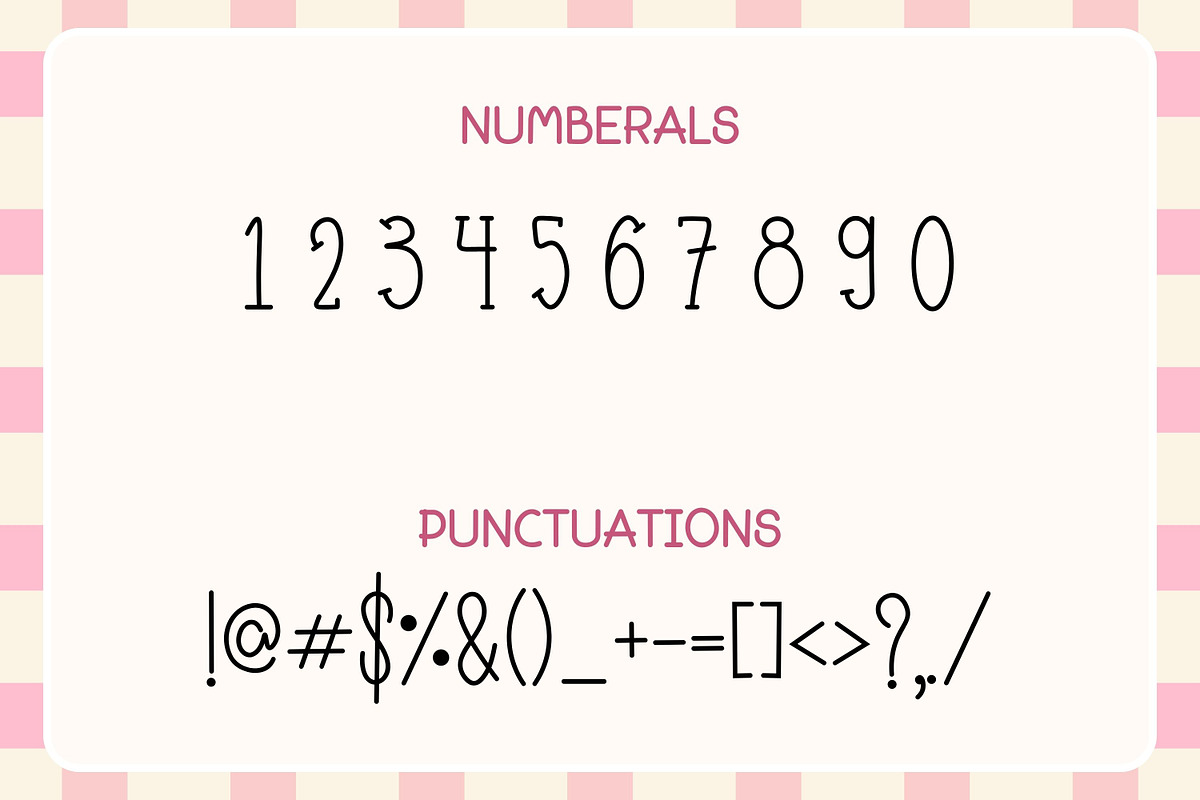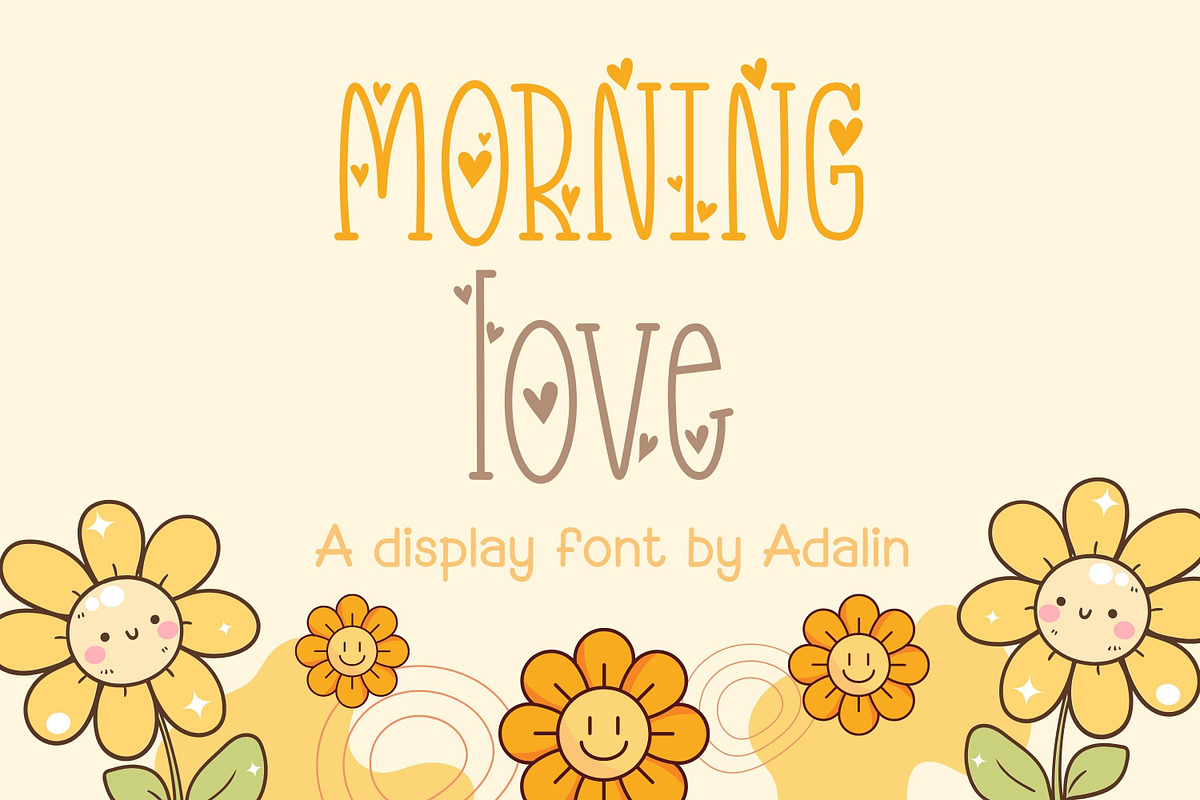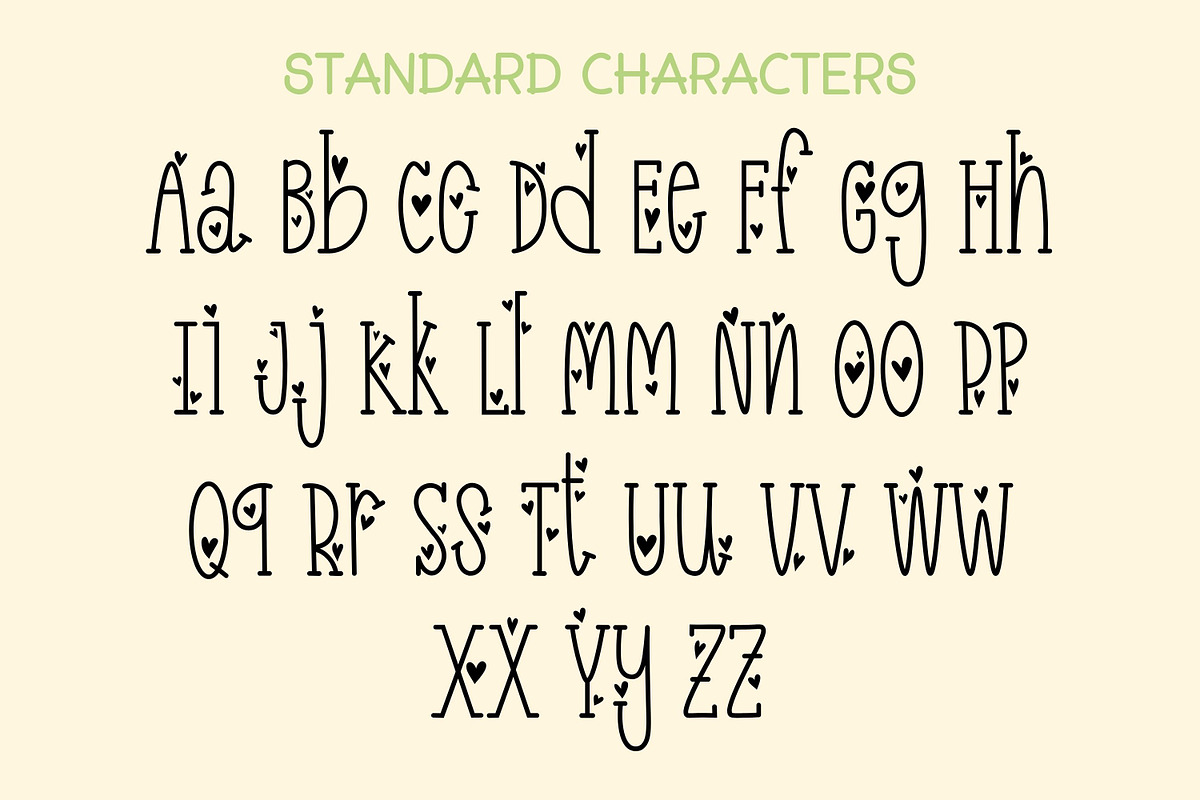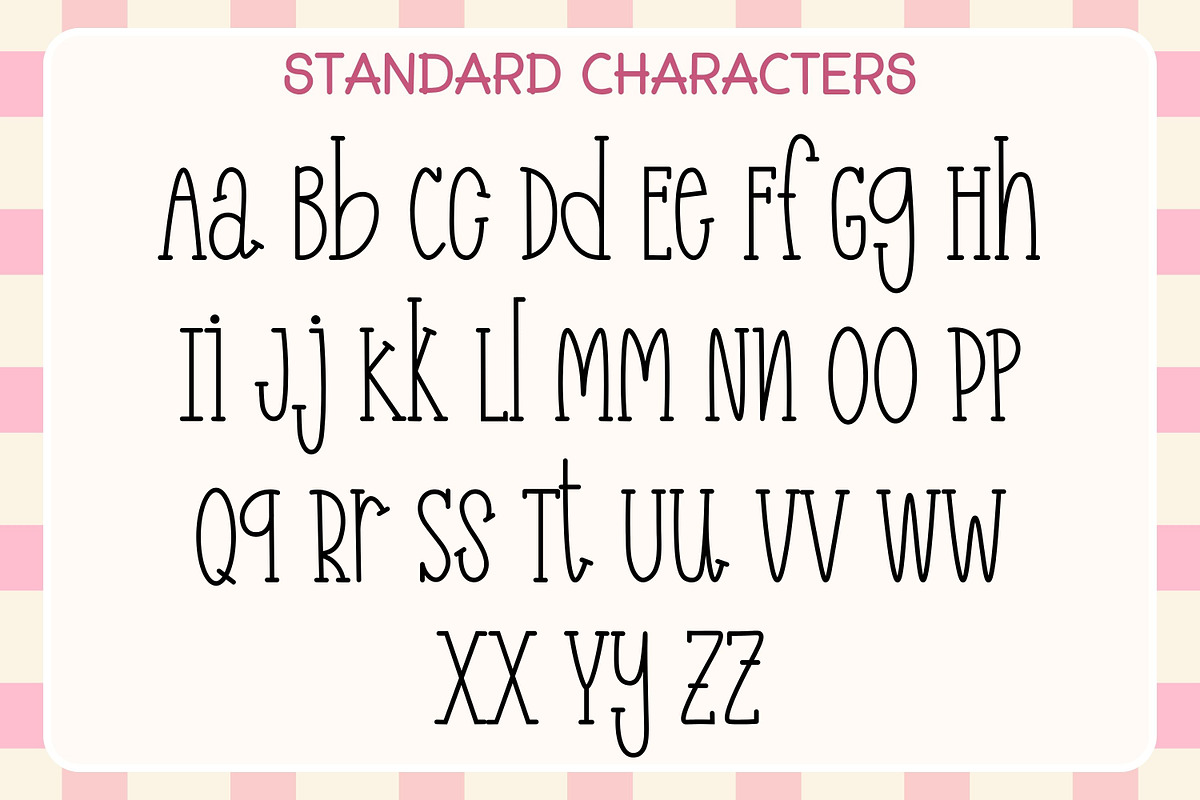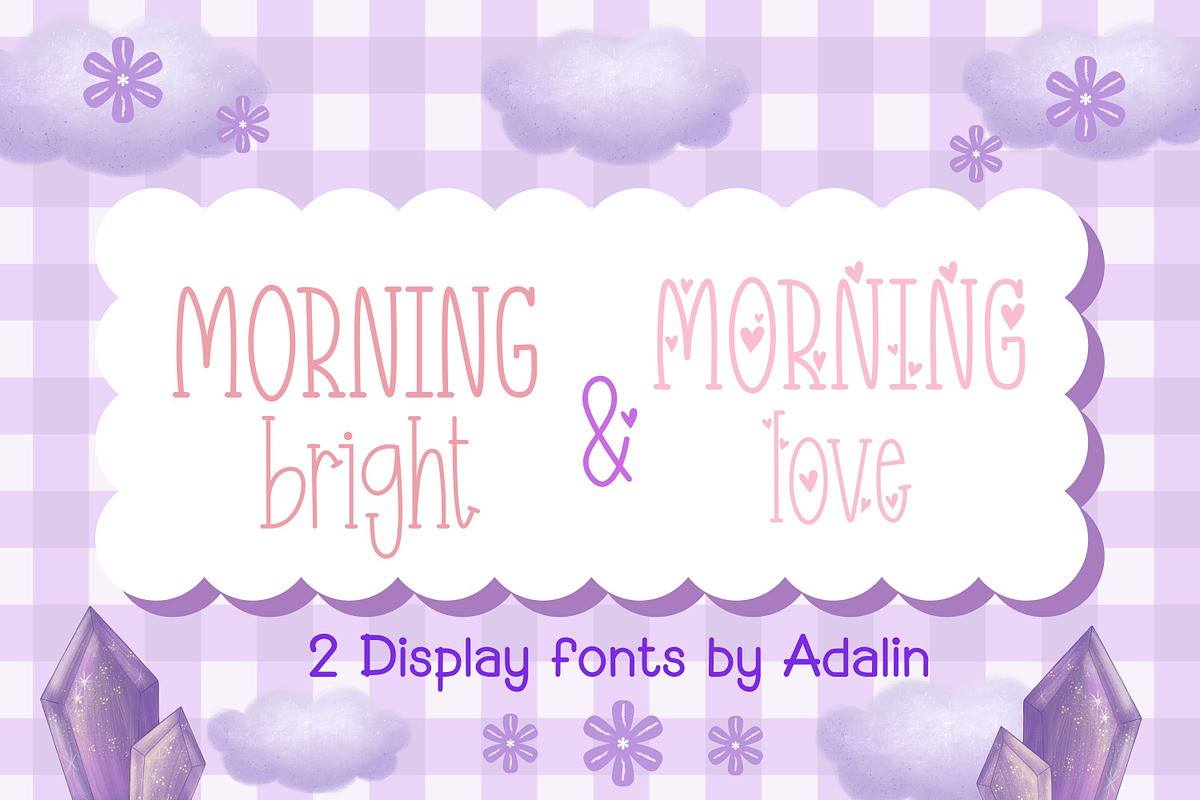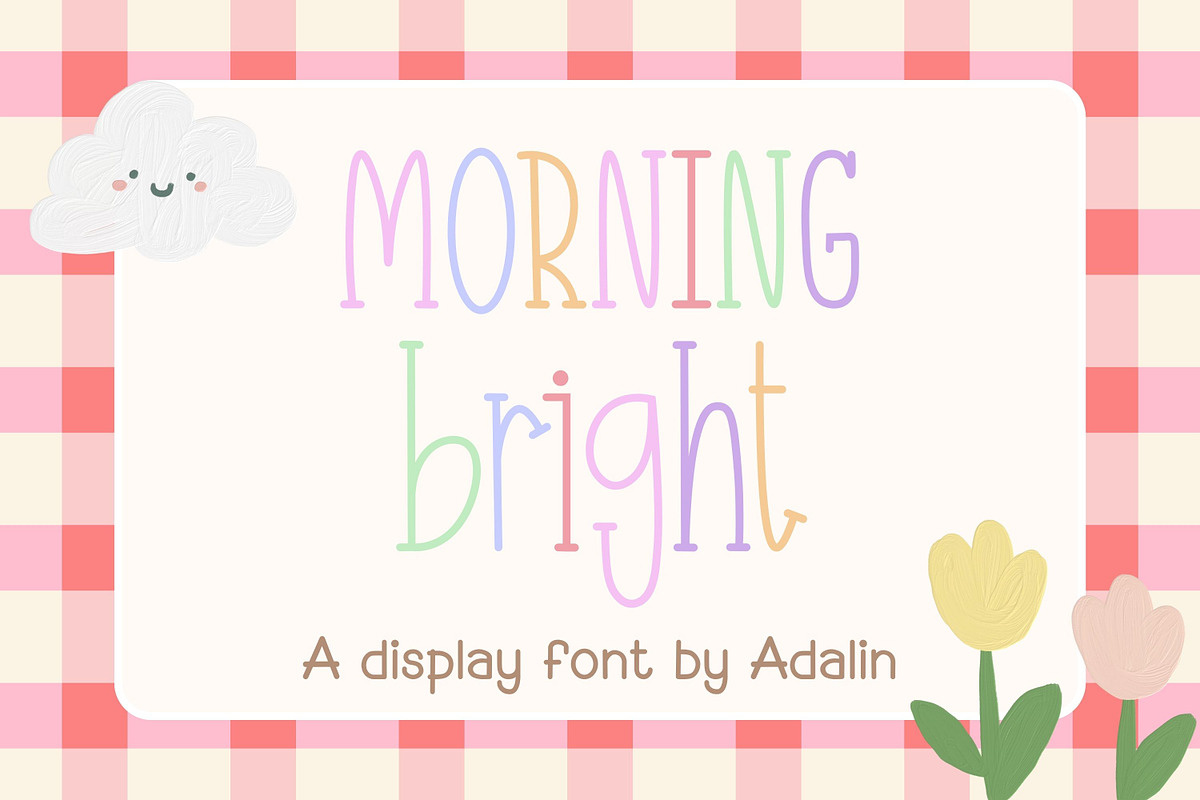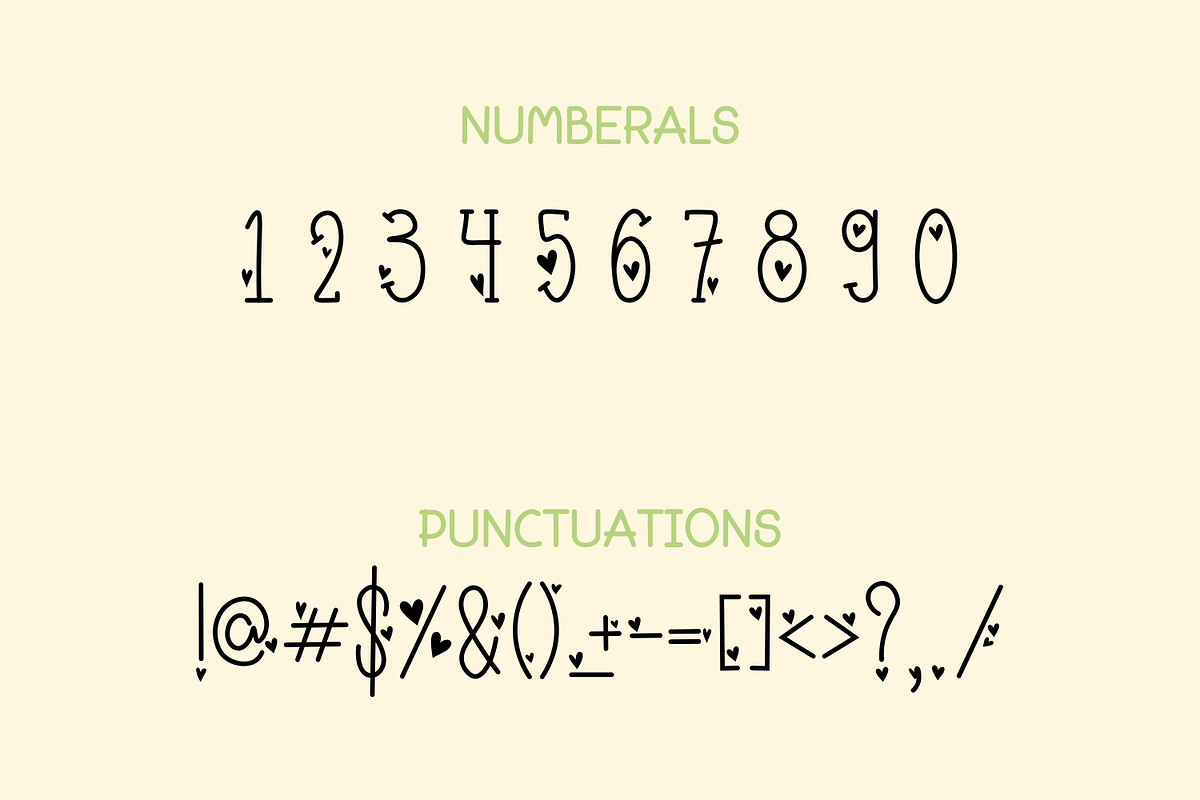
Morning Bright & Morning Love
Morning Bright & Morning Love is a cute display font duo that includes two playful and whimsical fonts with a hand-drawn style. These fonts are perfect for adding a sweet, fun, and lovely touch to your creative projects.
This bundle includes two display fonts with uppercase, lowercase, numbers, and punctuation. One font comes with clean playful characters, and the other includes adorable heart decorations, making them perfect for romantic, kids, and cute themed designs.